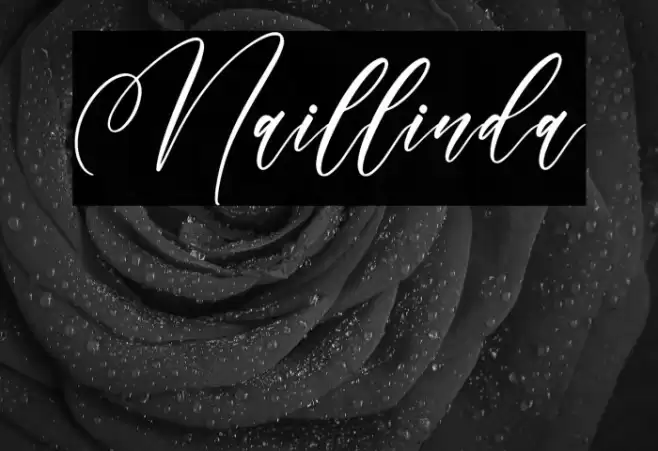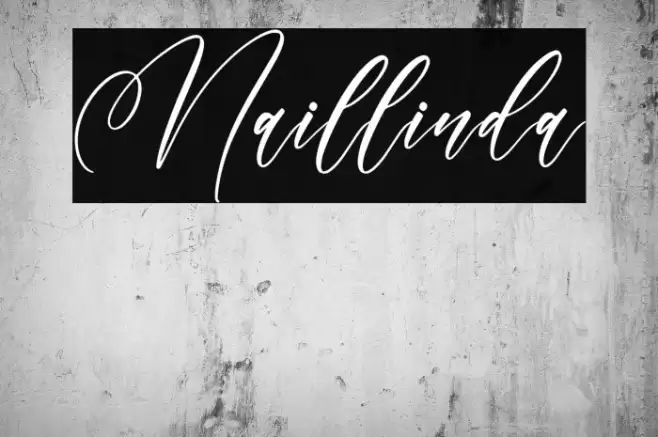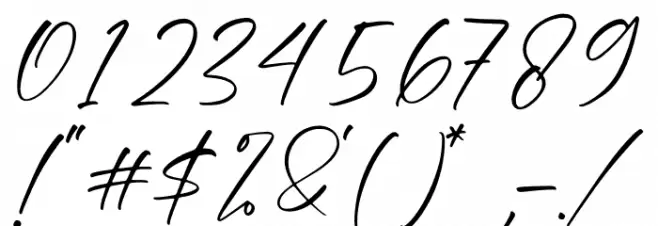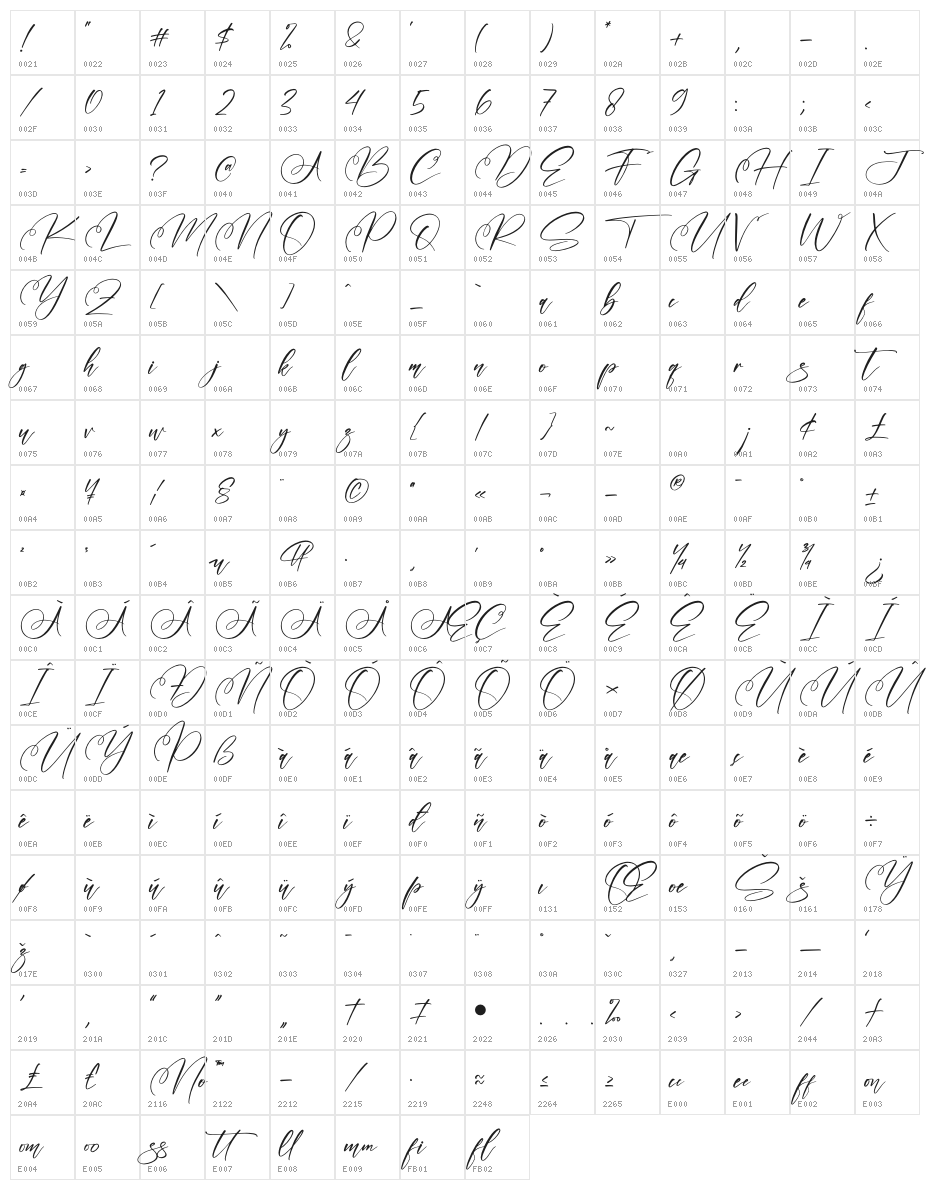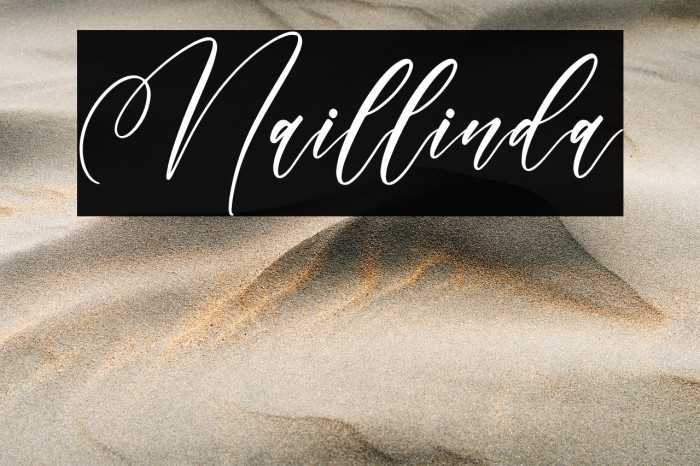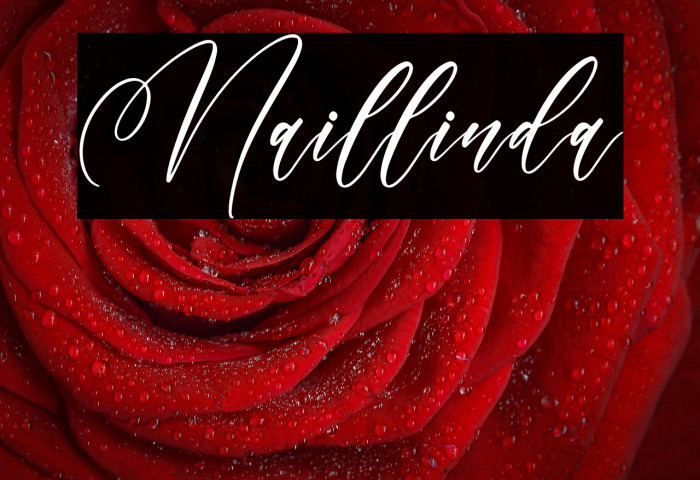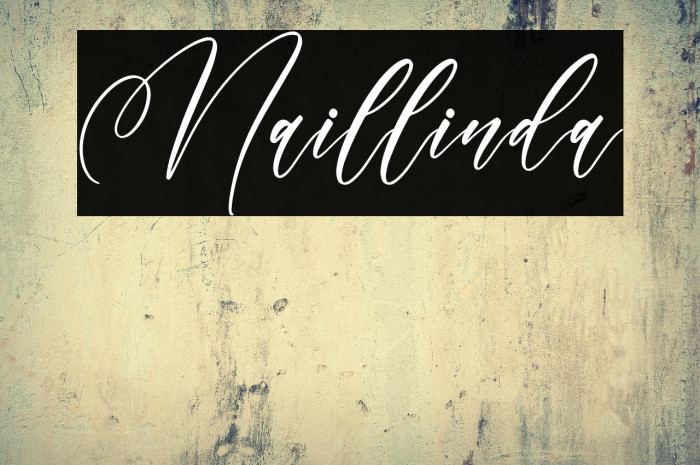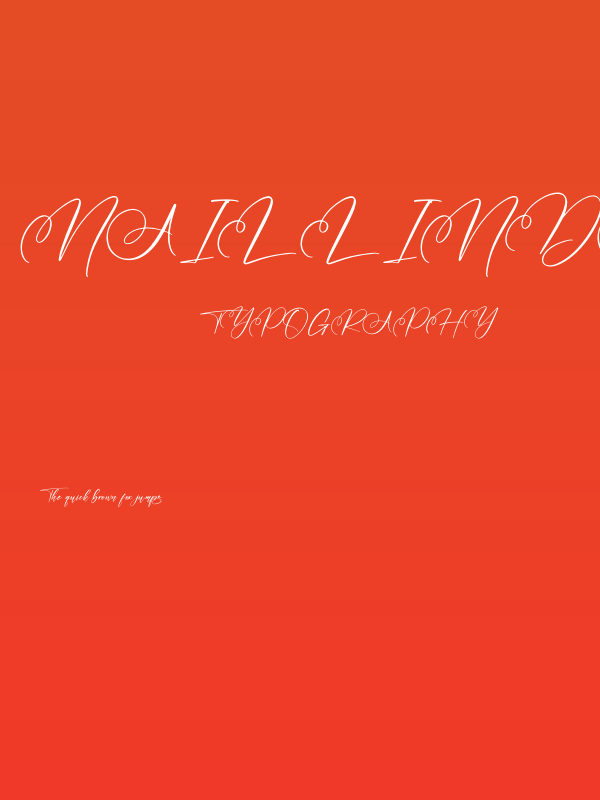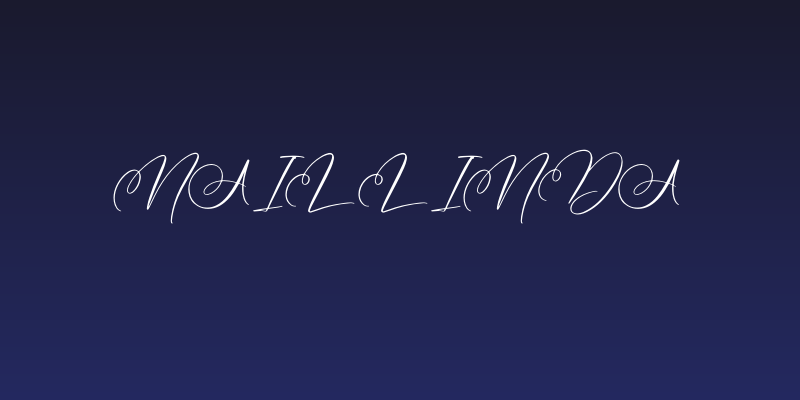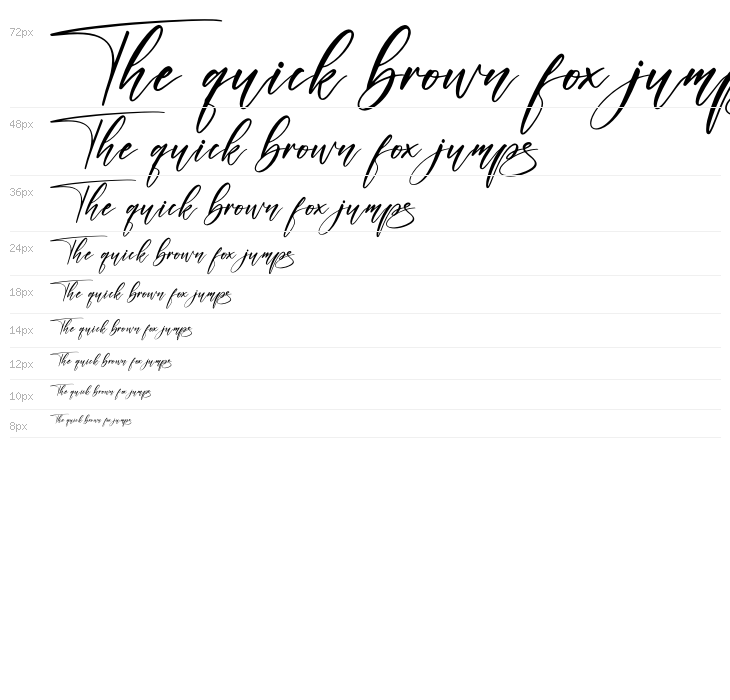
Naillinda Font
Naillinda Description
This font exhibits an elegant and flowing script style, characterized by its cursive and interconnected letterforms. The uppercase letters are ornate with sweeping curves and loops, while the lowercase letters maintain a consistent fluidity, enhancing its handwritten appeal. The numerals are distinct yet harmonize with the overall script style, featuring subtle flourishes. Special characters are designed with the same attention to detail, ensuring they blend seamlessly with the alphabet. This font's delicate strokes and artistic flair make it suitable for creative and expressive design projects.
An elegant, flowing script font with interconnected letterforms and artistic flair from Uncategorized fonts.
- Proposed Projects: Ideal for wedding invitations, greeting cards, branding, and logo design where a personal, artistic touch is desired.
- Character Spacing: Tight
- Use Case: Logos, Invitations, Decorative text